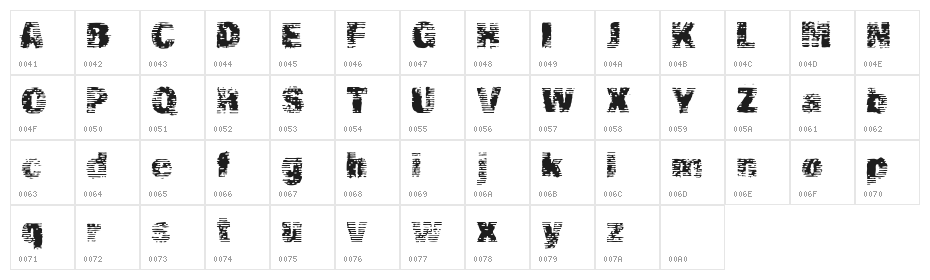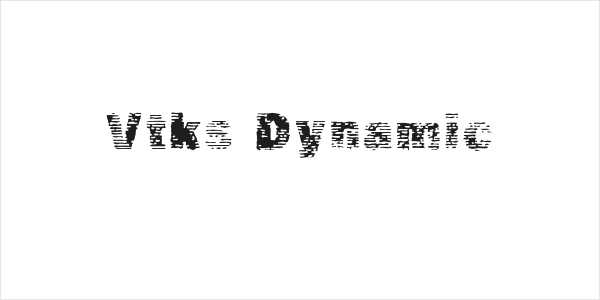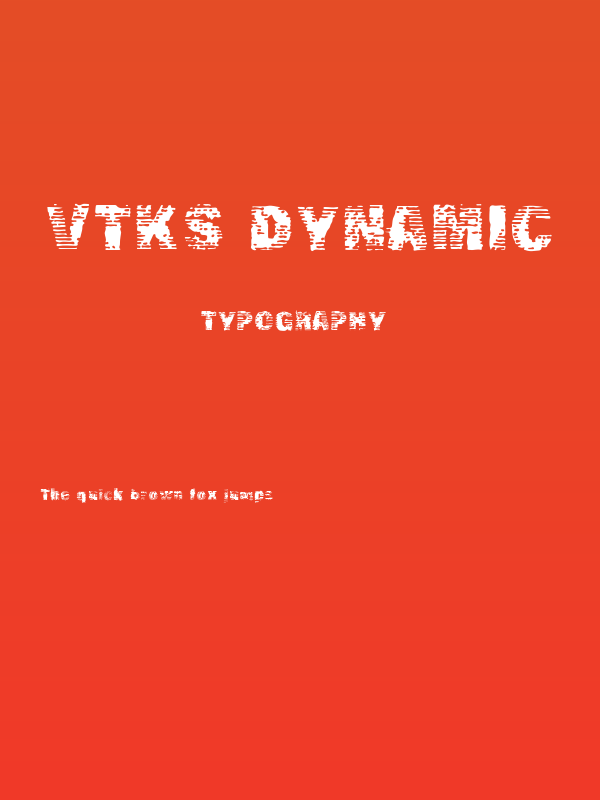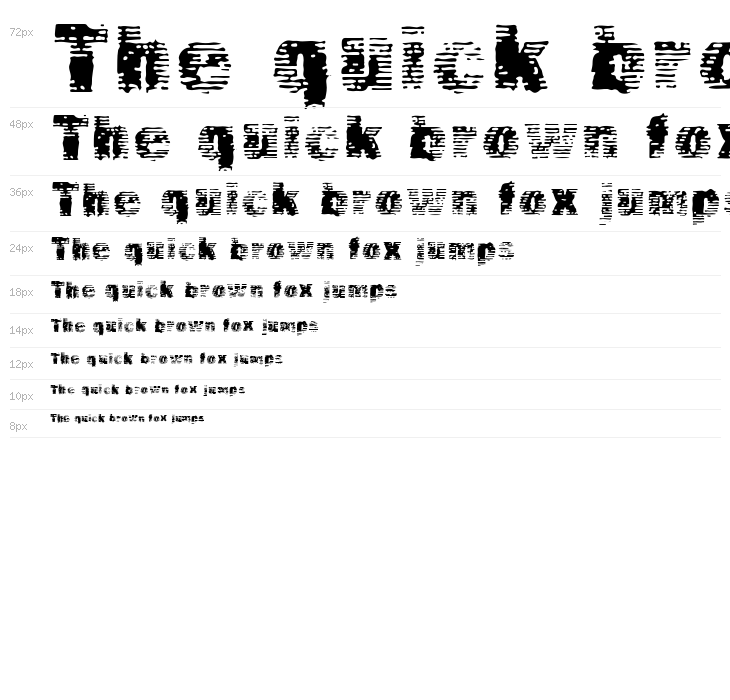
Vtks Dynamic Font
✎ Distorted Eroded
| Vorgeschlagene Projekte | Ideal for music album covers, posters, streetwear branding, or any design needing an edgy, urban vibe. |